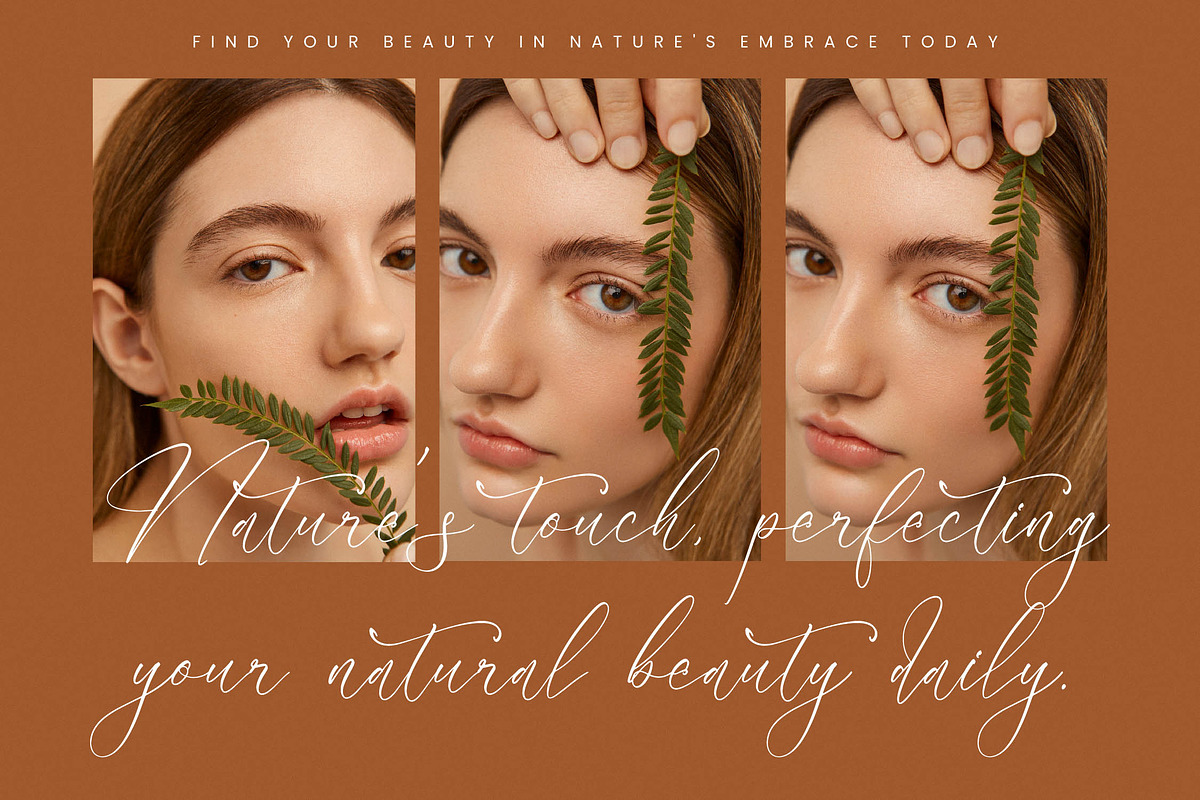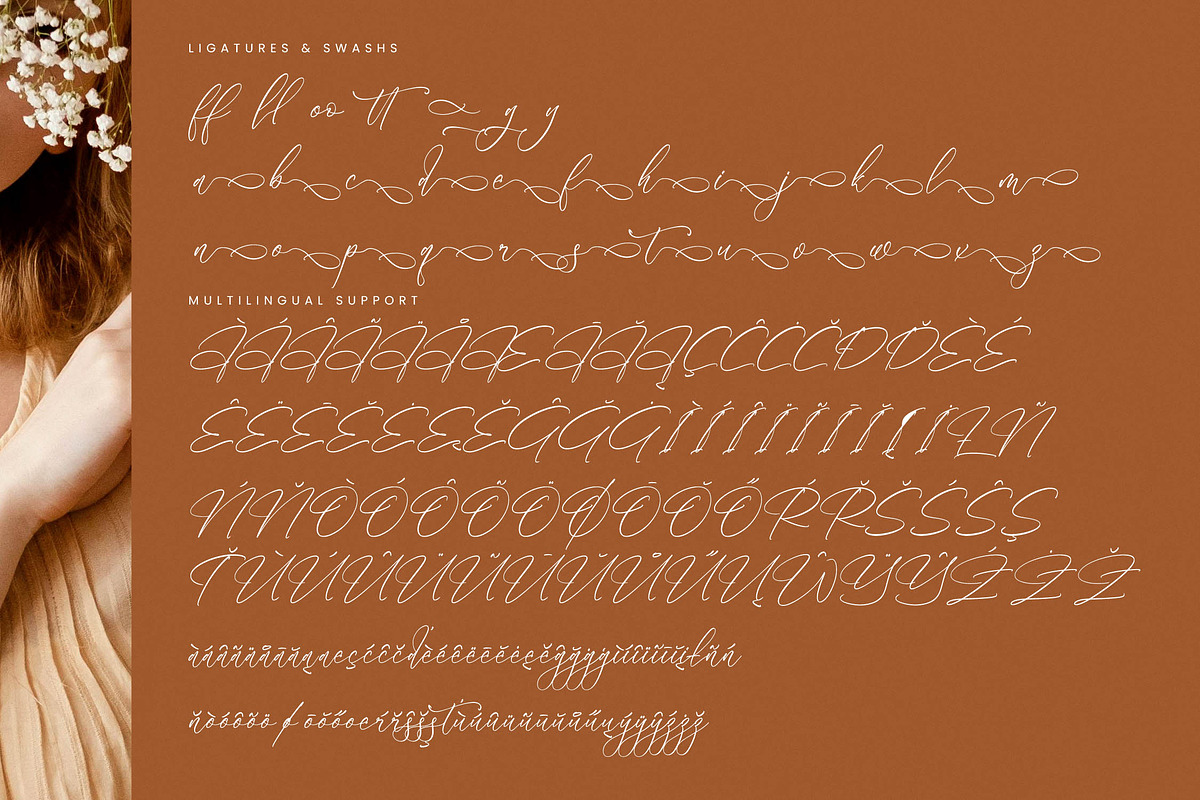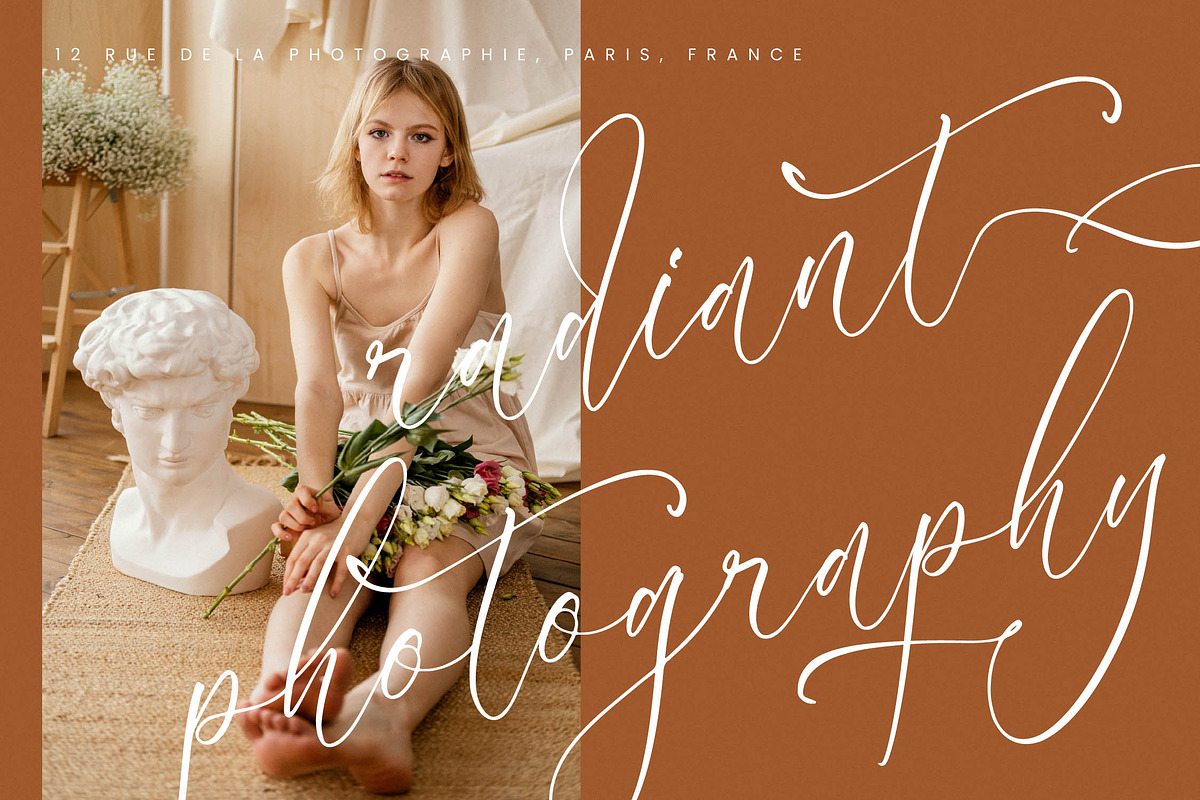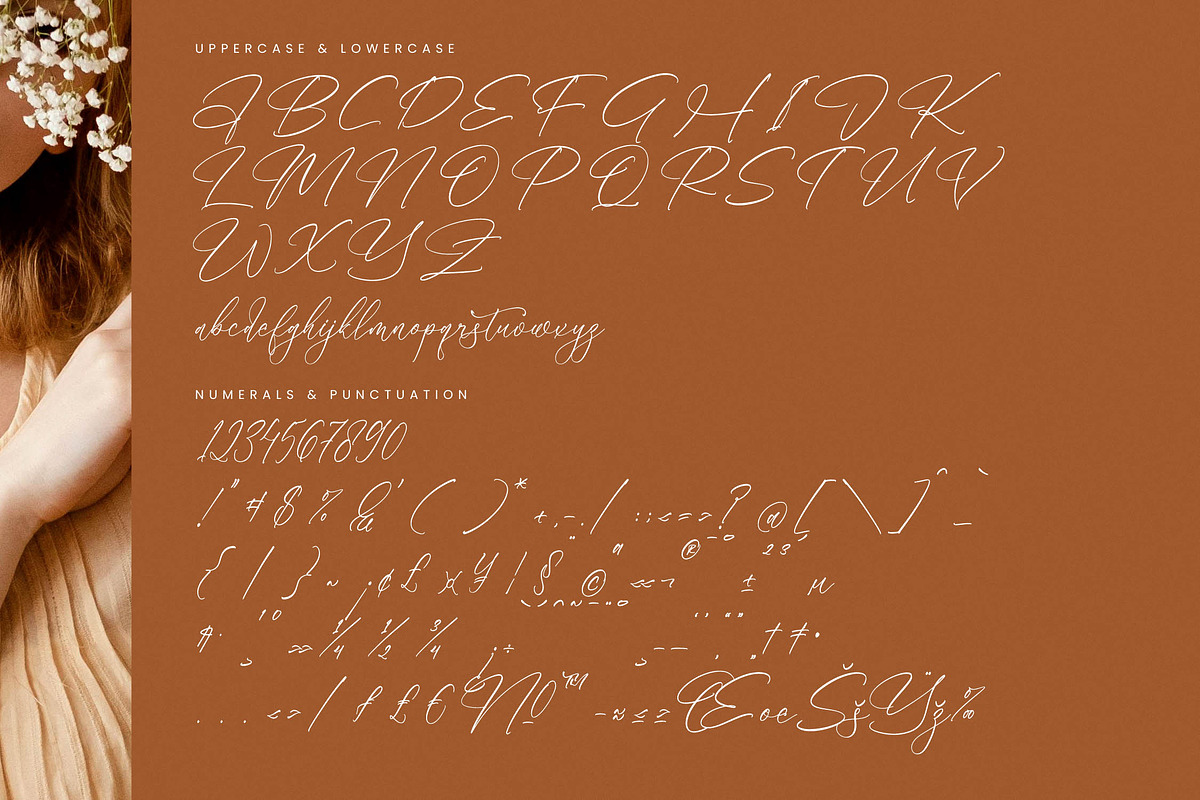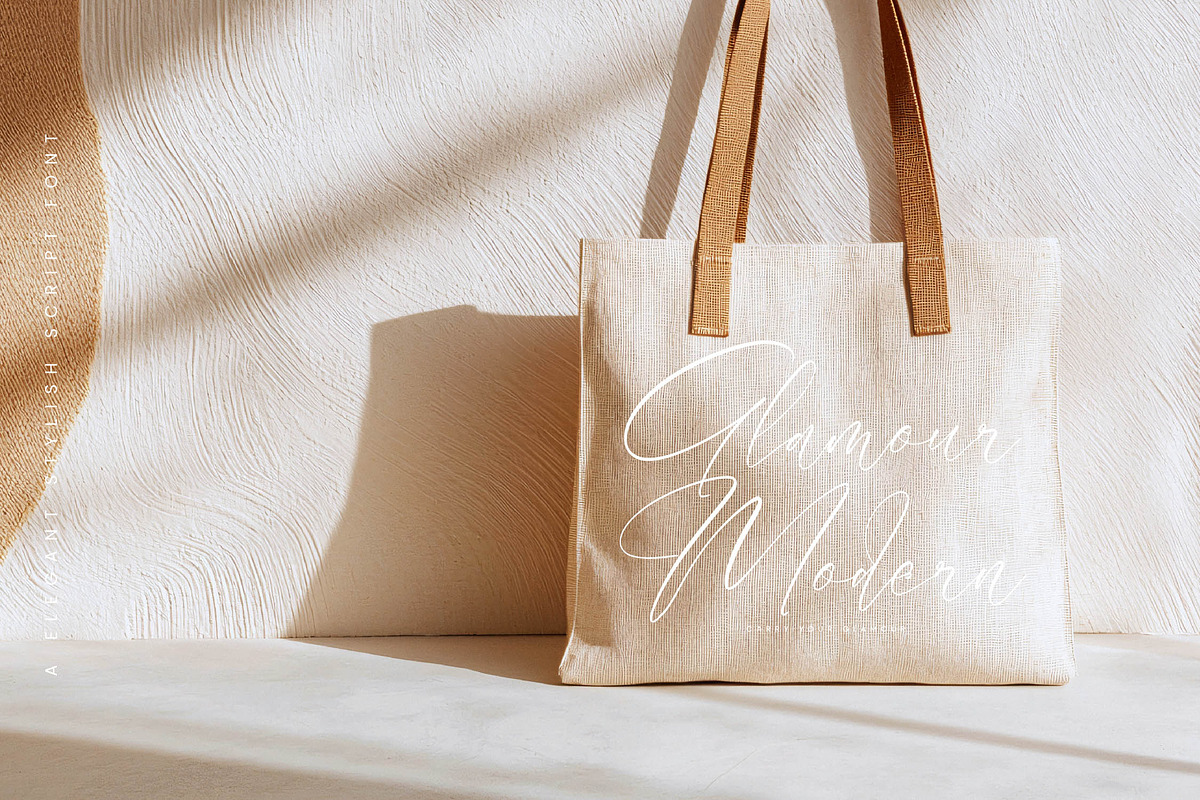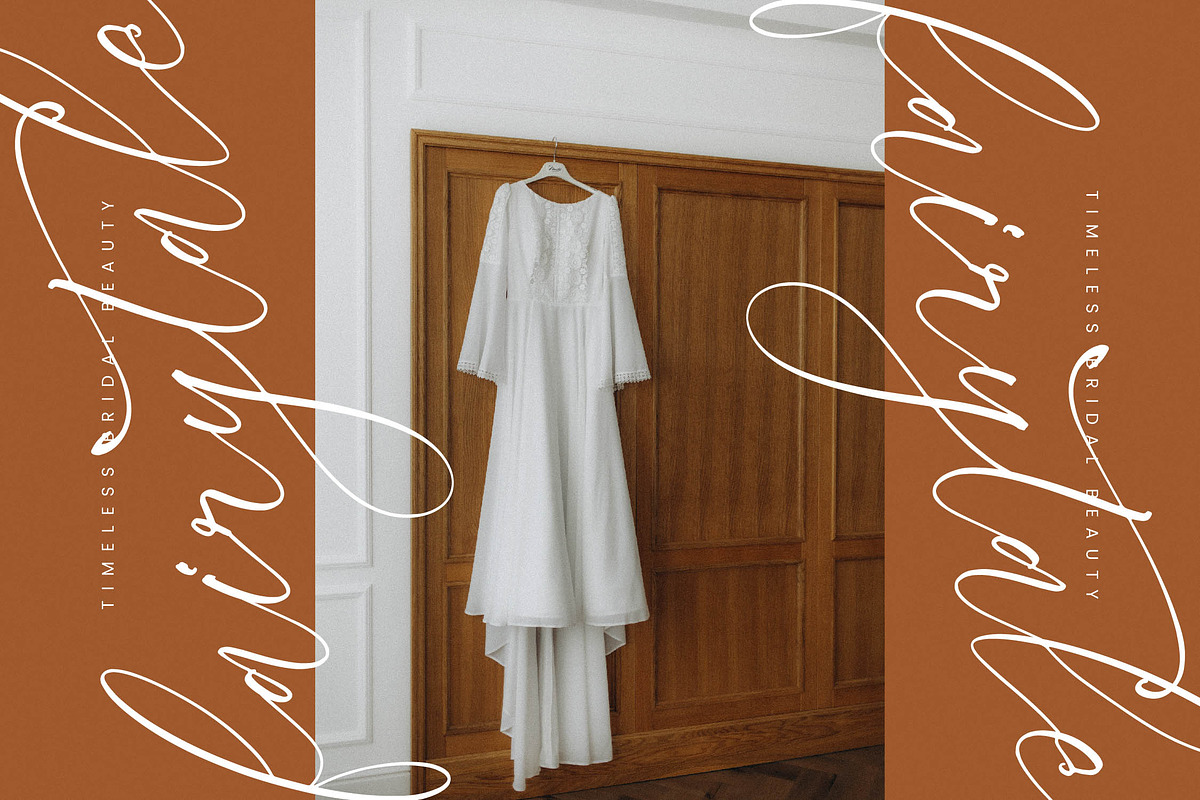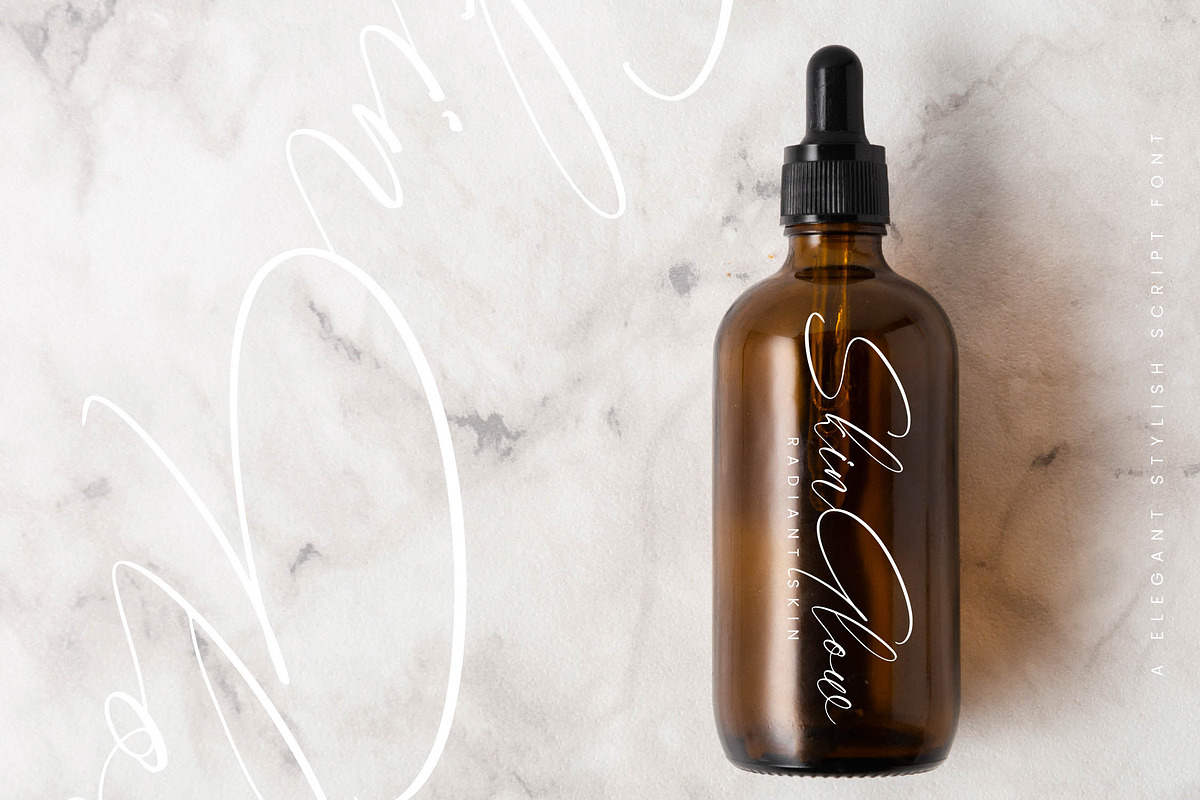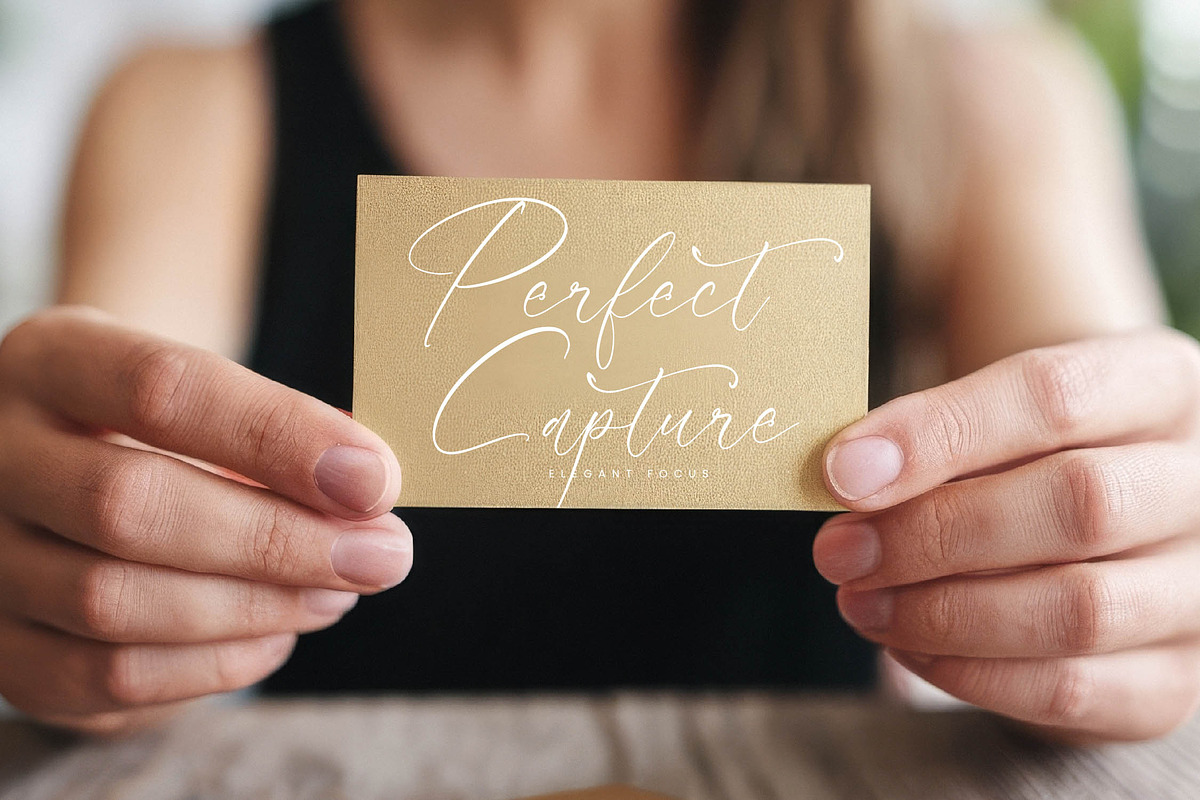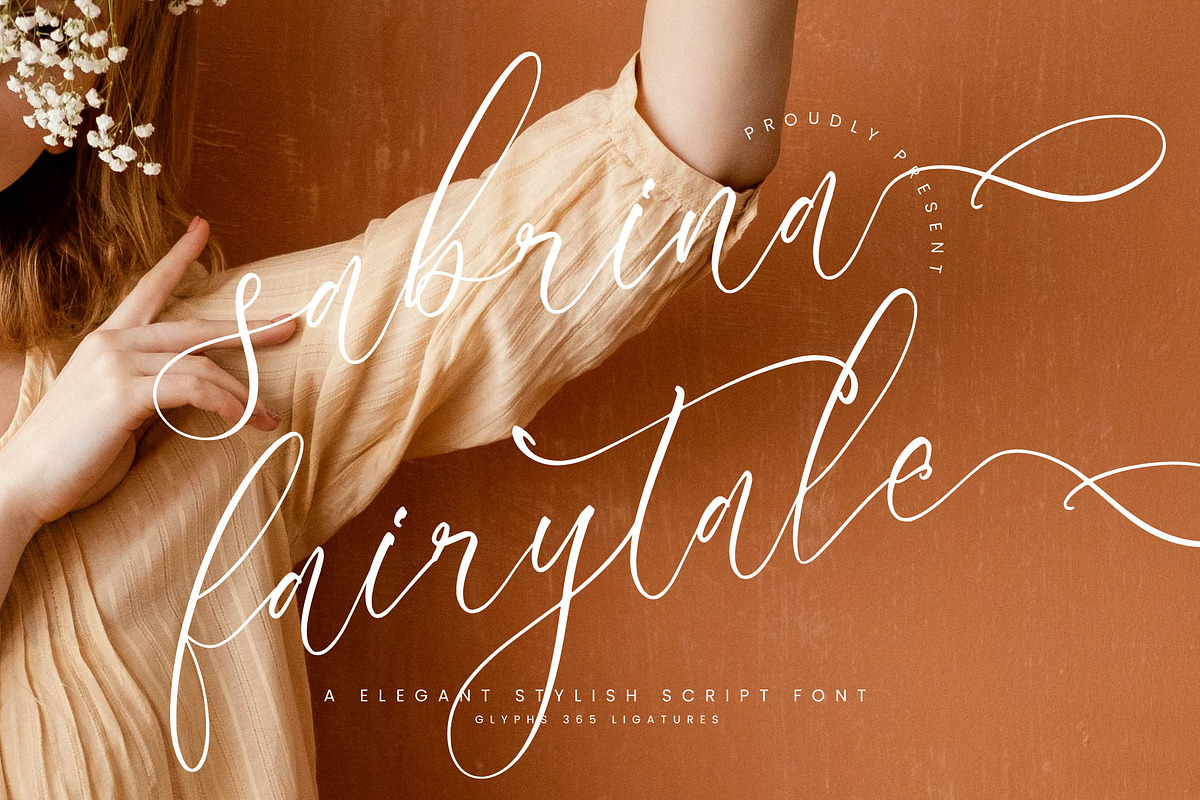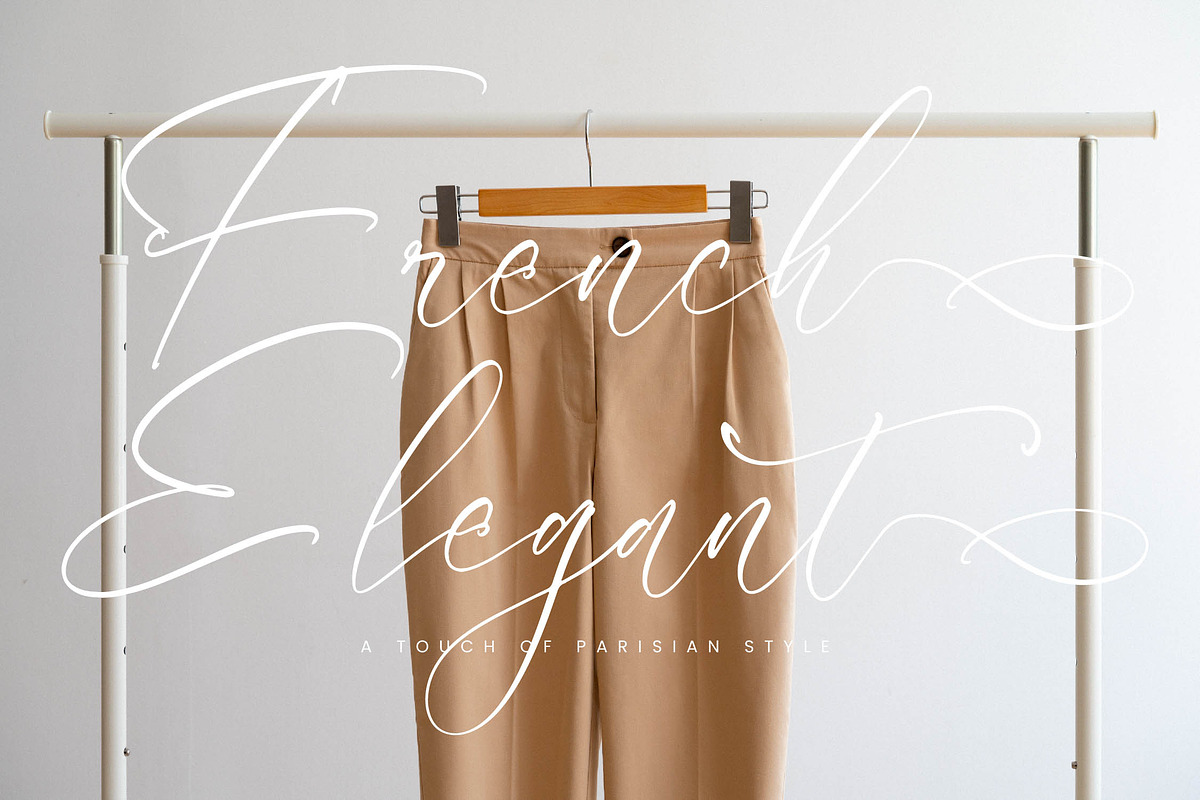
Sabrina Fairytale
Sabrina Fairytale - A Elegant Stylish Script Font, from Integritype Studio, perfect for any project like: logos, branding projects, homewares designs, product packaging, mugs, quotes, posters, shopping bags, t-shirts, covers books, business cards, invitation cards, greeting cards, labels, photography, watermarks, special events and all your other luxury projects that require a premium taste.
Ligatures, Alternate & Swashes
The font includes support for 65 languages; Afrikaans, Albanian, Asu, Basque, Bemba, Bena, Breton, Catalan, Chiga, Cornish, Danish, Dutch, English, Faroese, Filipino, French, Friulian, Galician, German, Gusii, Indonesian, Irish, Italian, Kabuverdianu, Kalenjin, Kinyarwanda, Luo, Luxembourg, Luyia, Machame, Makhuwa-Meetto, Makonde, Malagasy, Manx, Morisyen, North Ndebele, Norwegian Bokmål, Nynorsk Norwegian, Nyankole, Oromo, Portuguese, Quechua, Romansh, Rombo, Rundi, Rwa, Samburu, Sango , Sangu, Scottish Gaelic, Sena, Shambala, Shona, Soga, Somali, Spanish, Swahili, Swedish, Swiss, German, Taita, Teso, Uzbek (Latin), Volapük, Vunjo, Zulu,